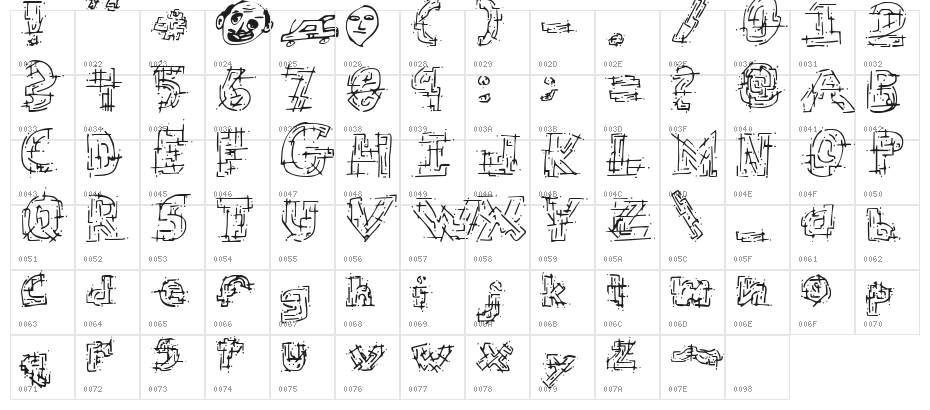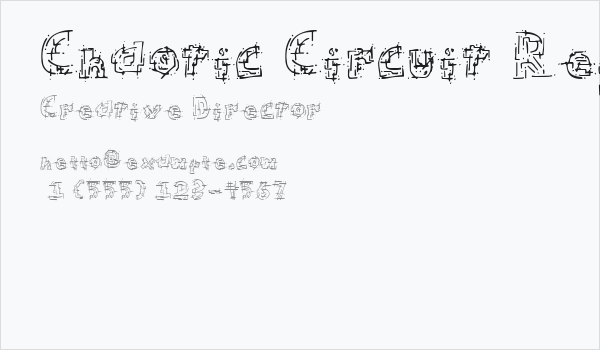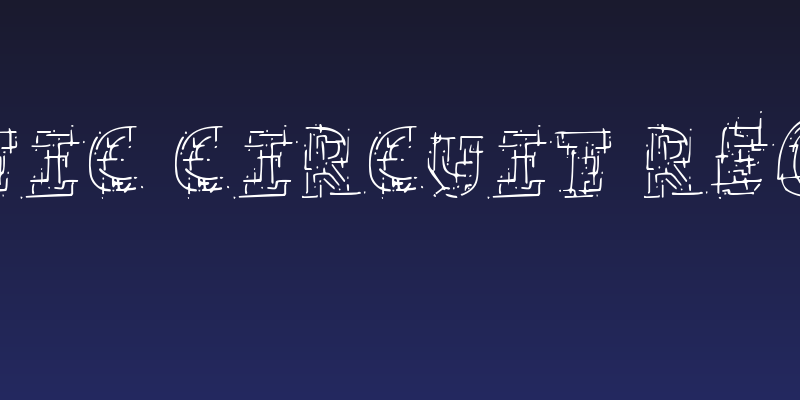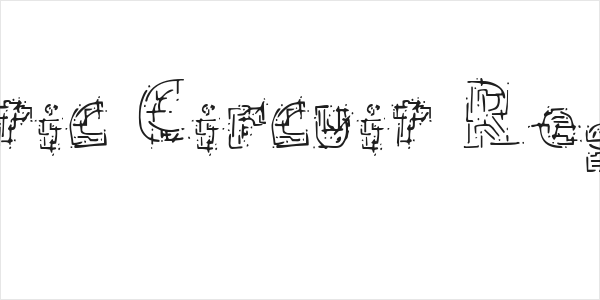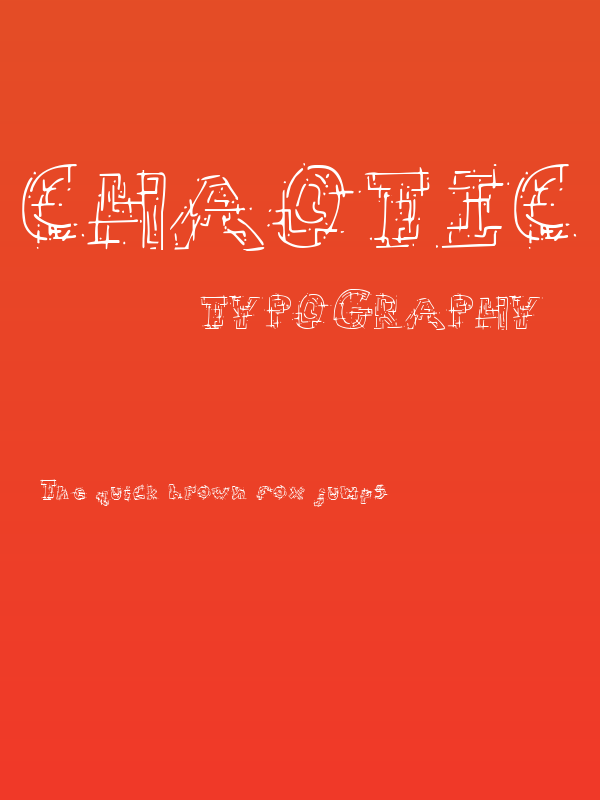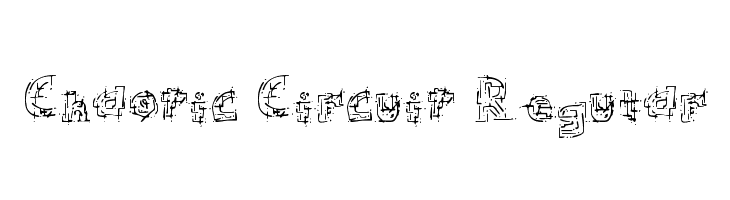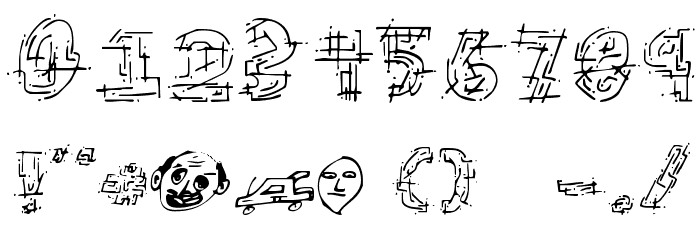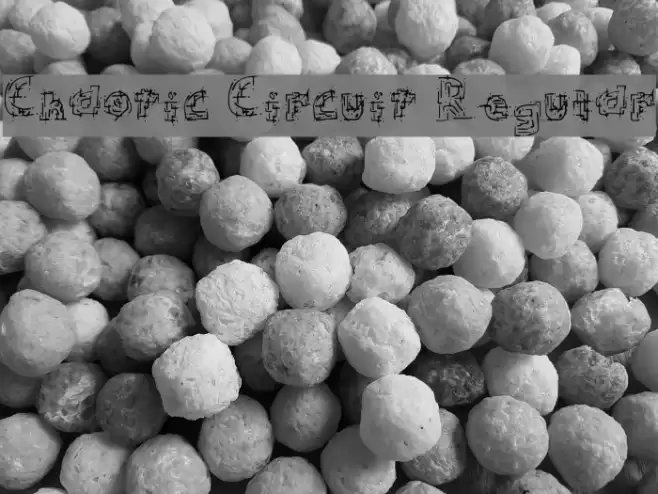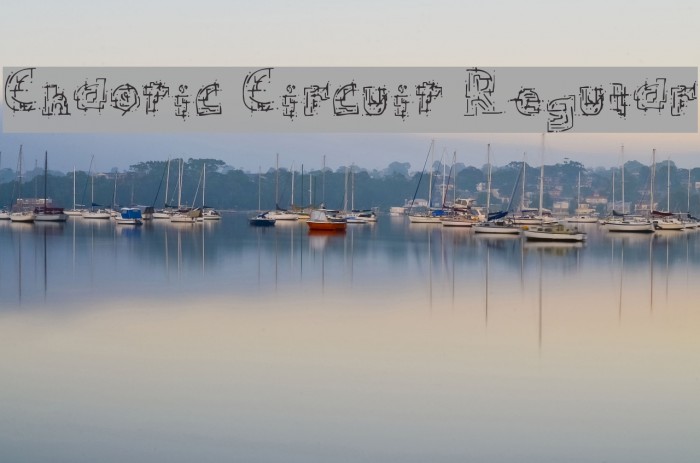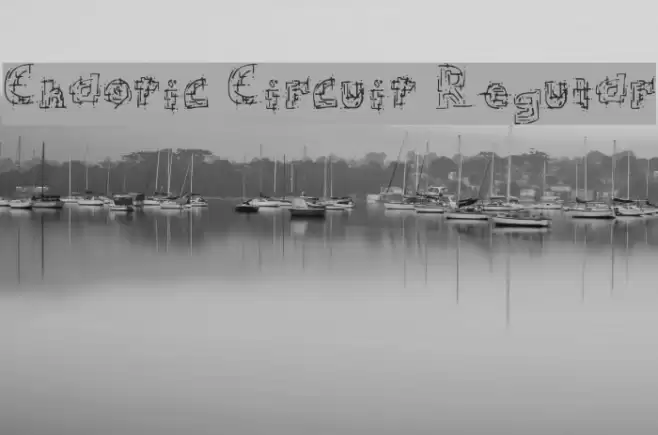
Chaotic Circuit Regular Font
| Style général | Futuristic, Industrial |
| Projets proposés | Ideal for tech-themed posters, sci-fi book covers, video game graphics, or any project needing a futuristic and intricate design. |